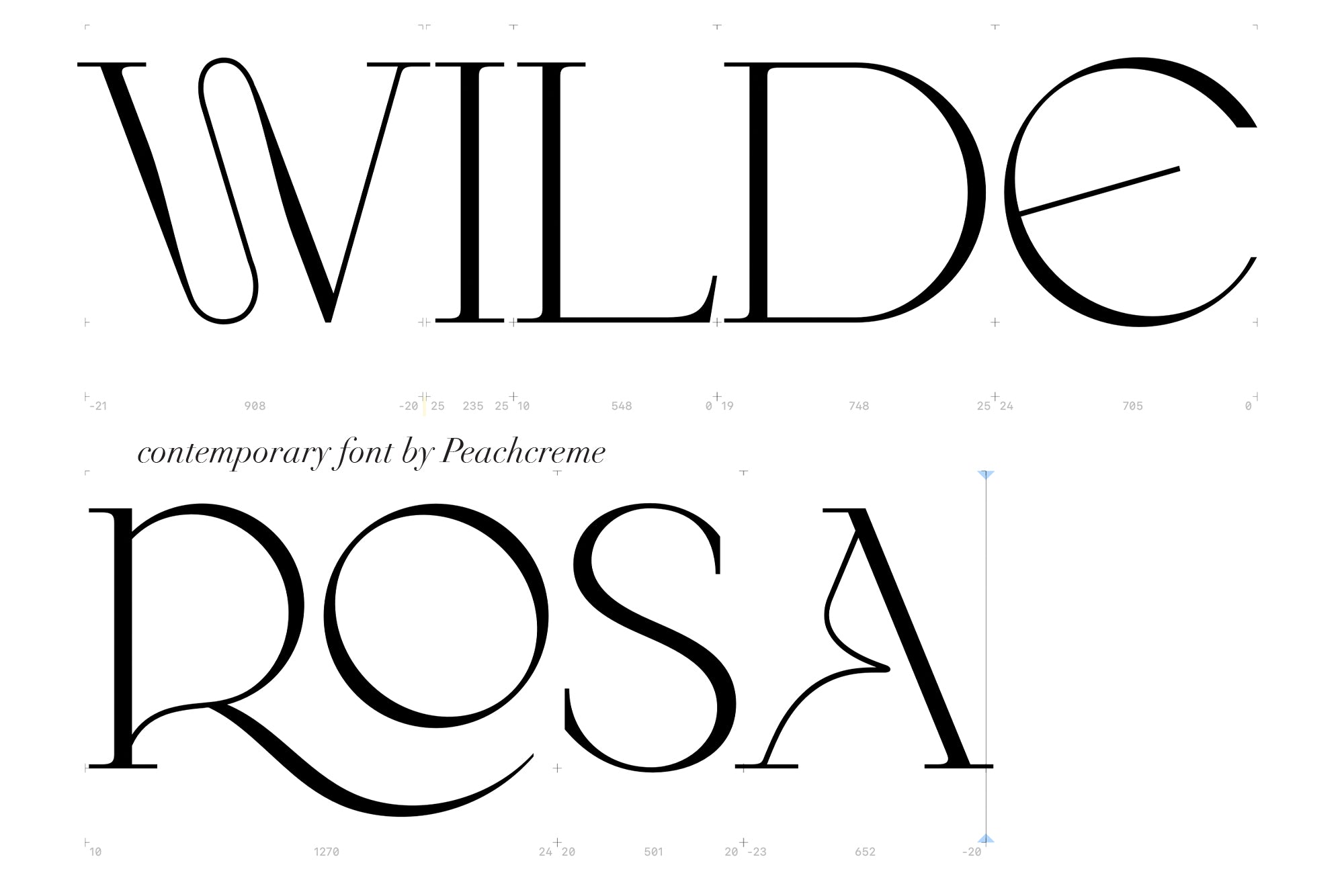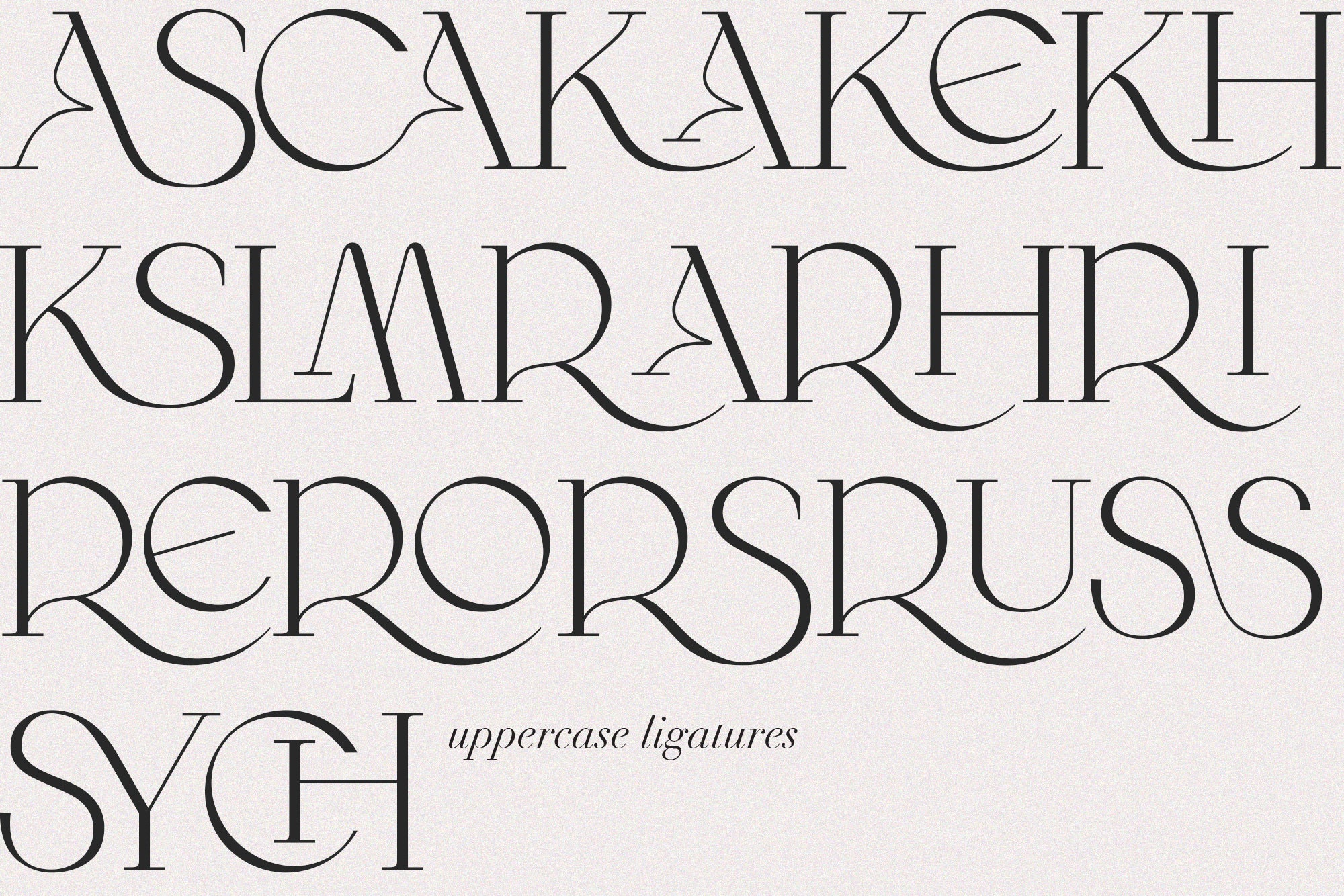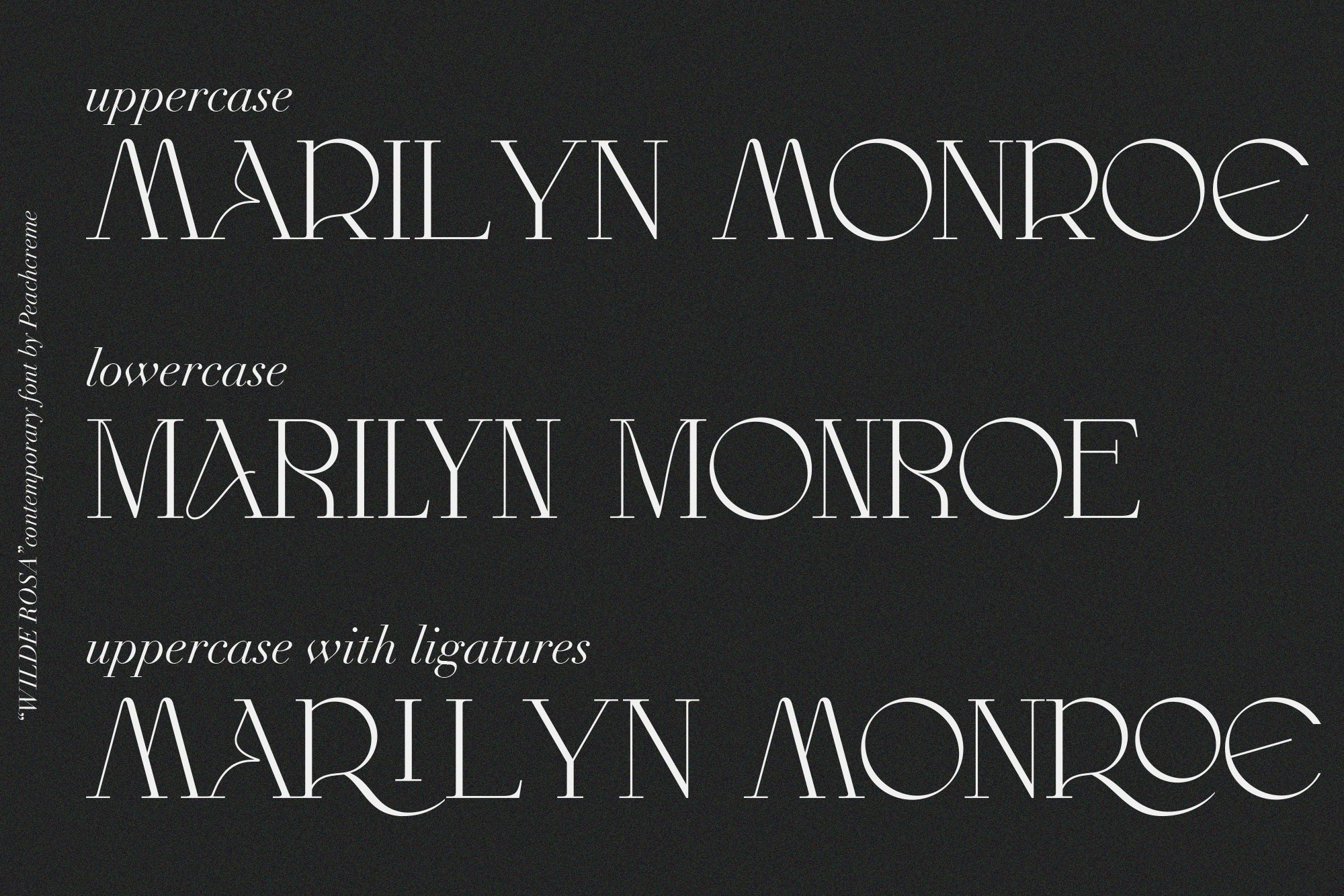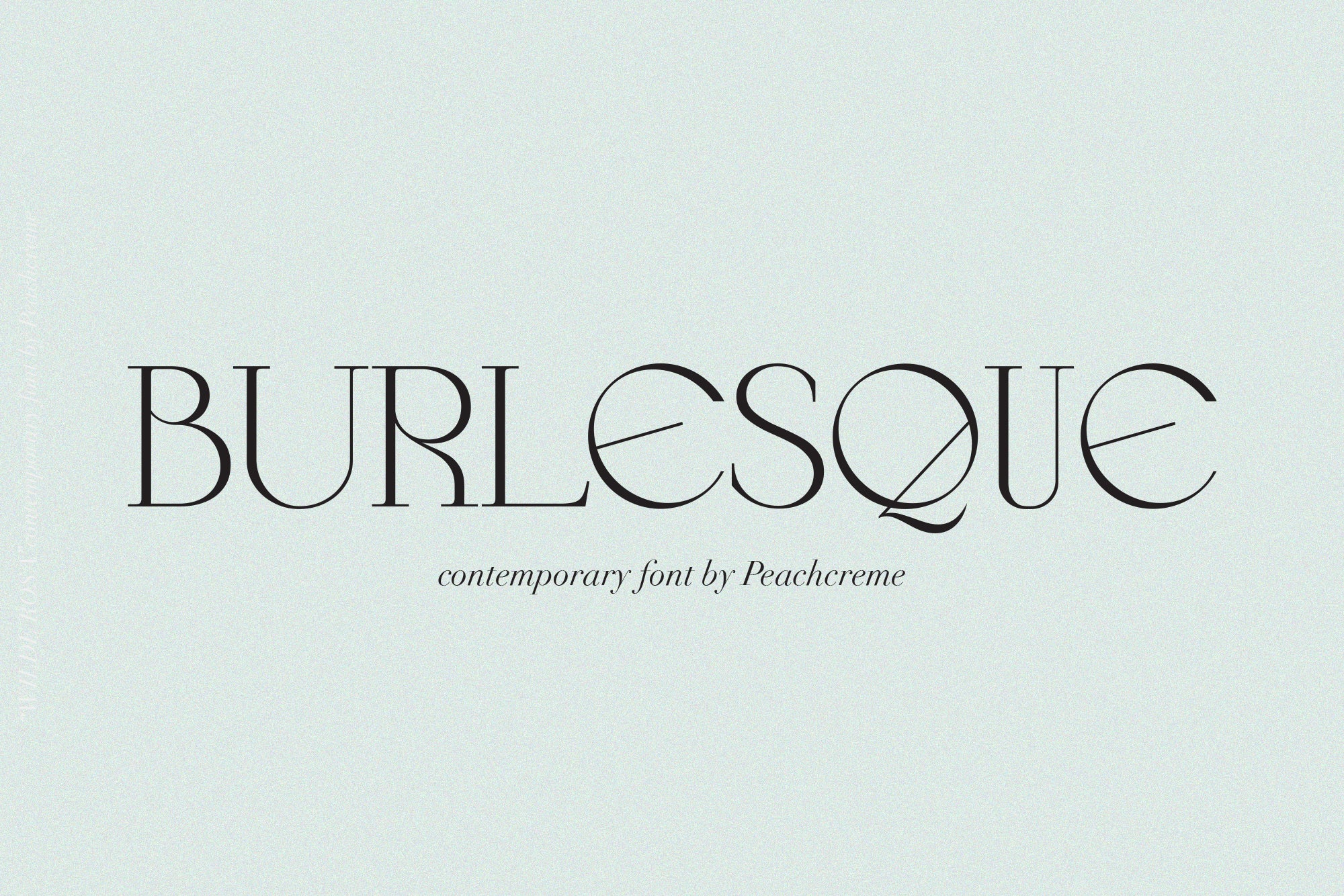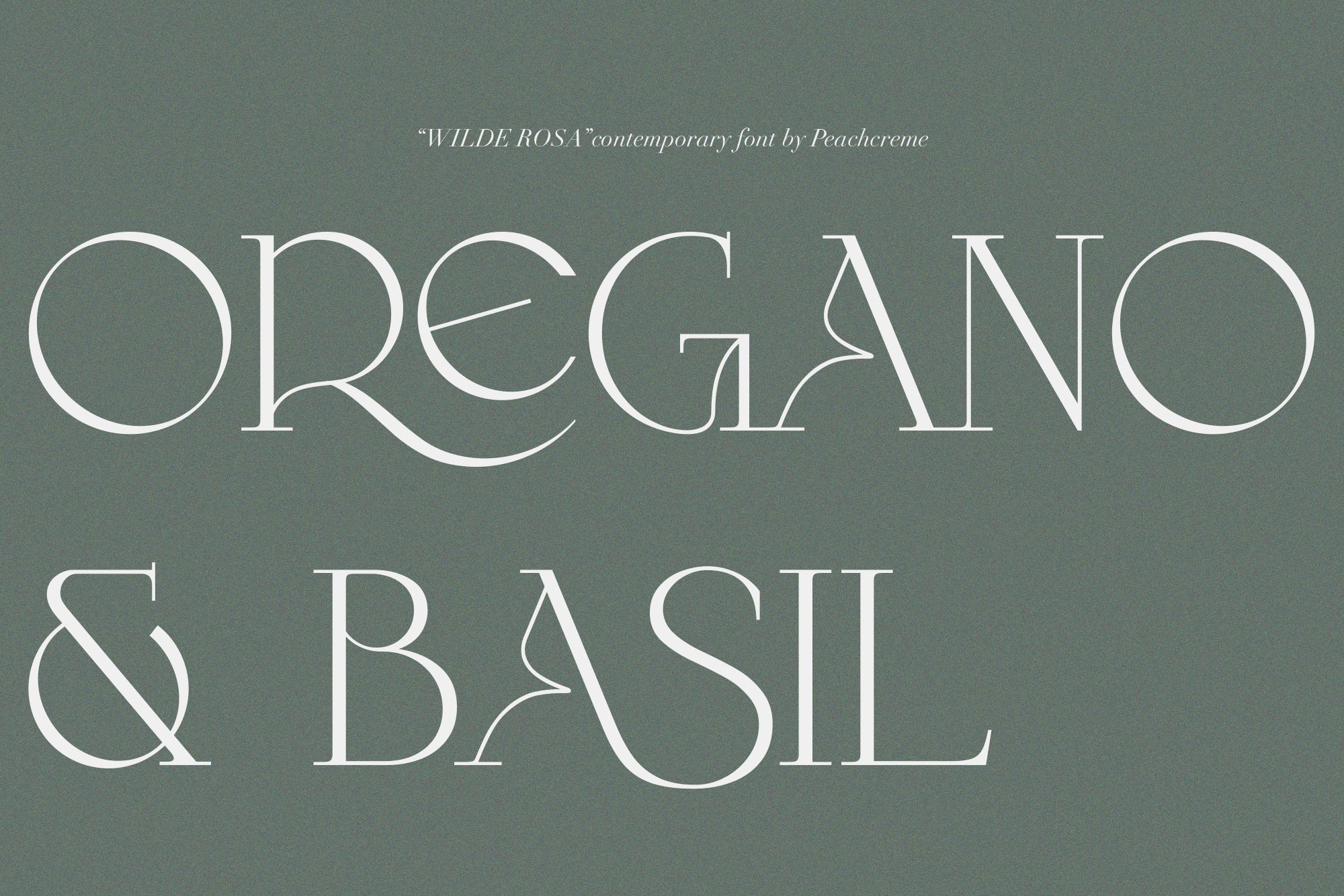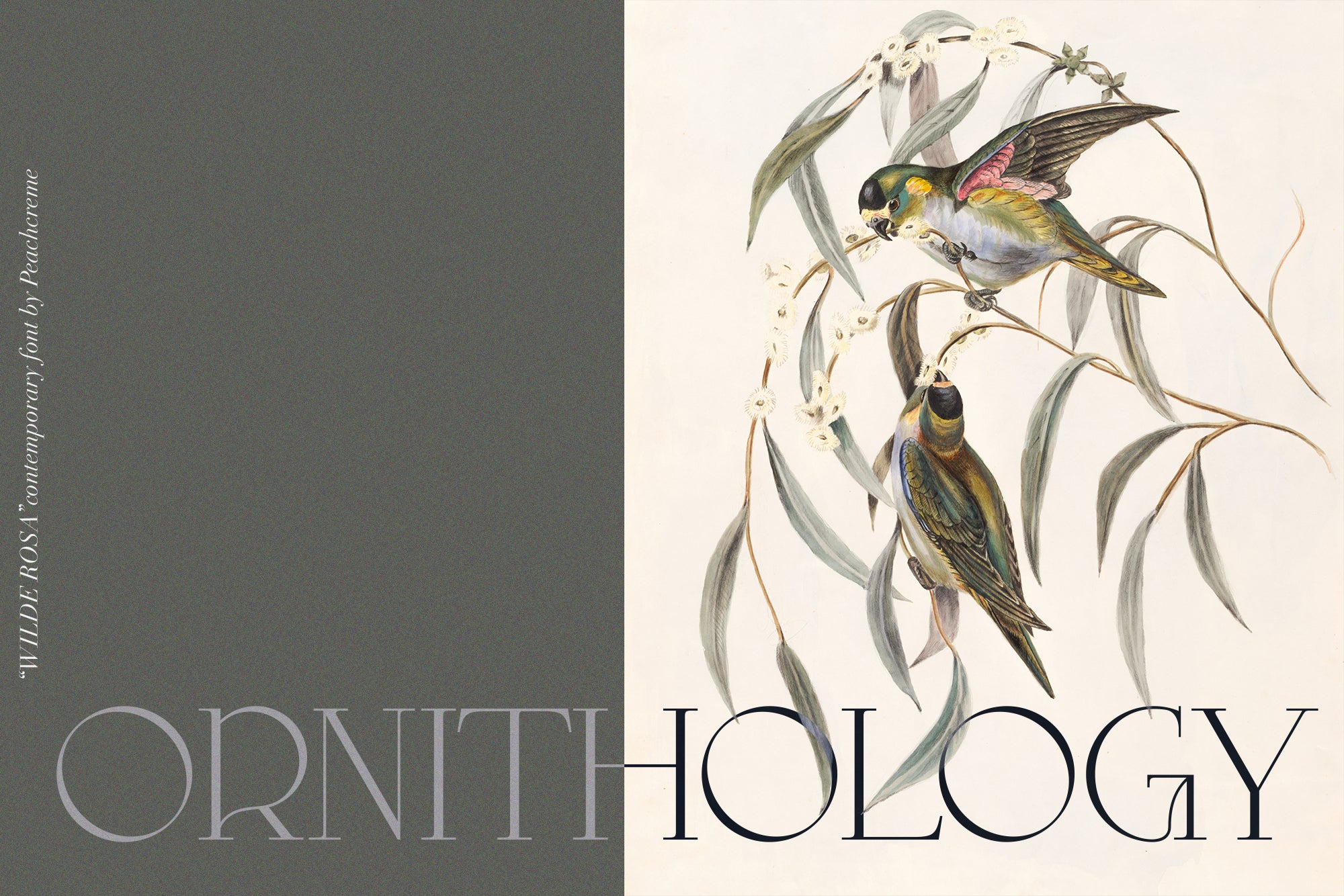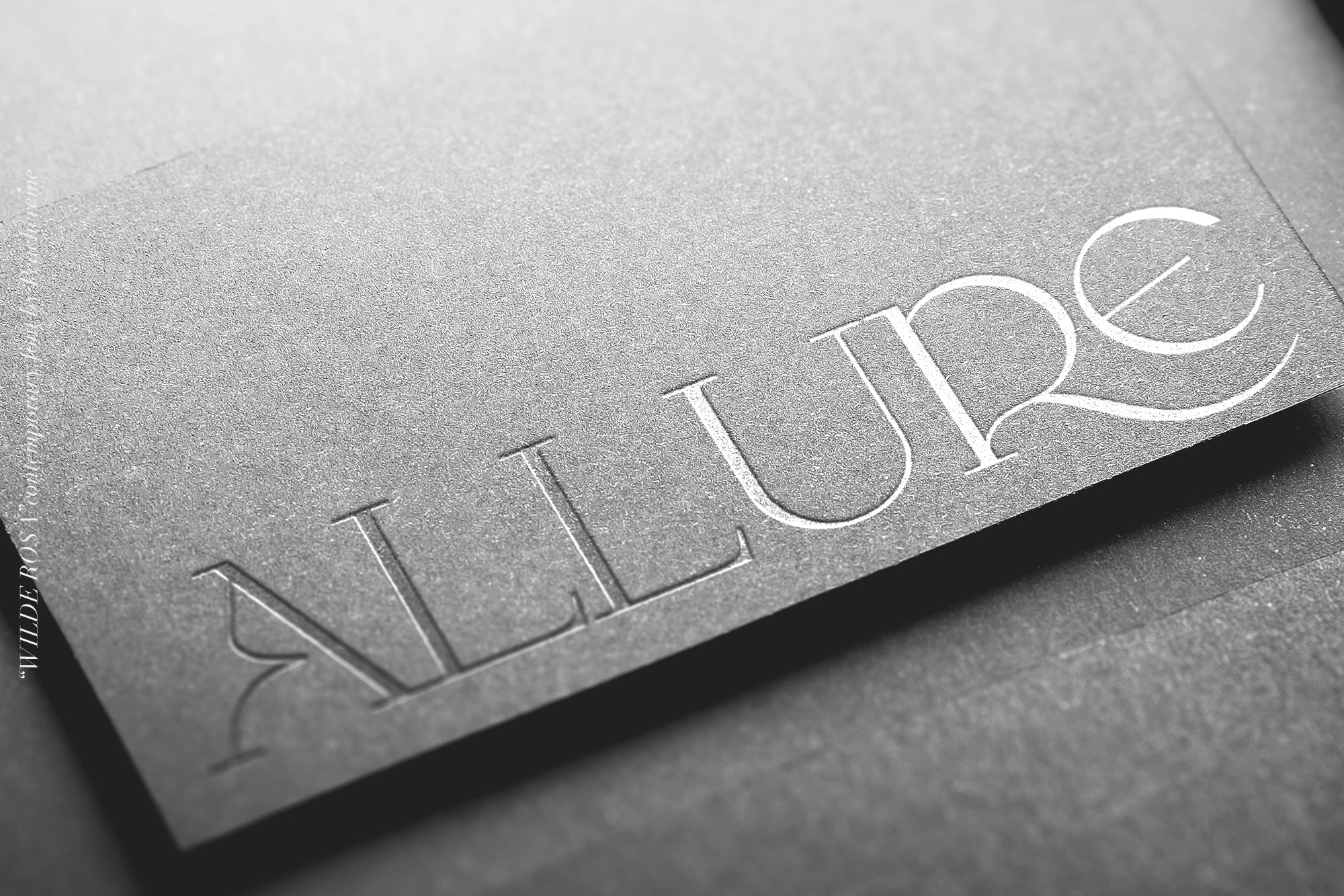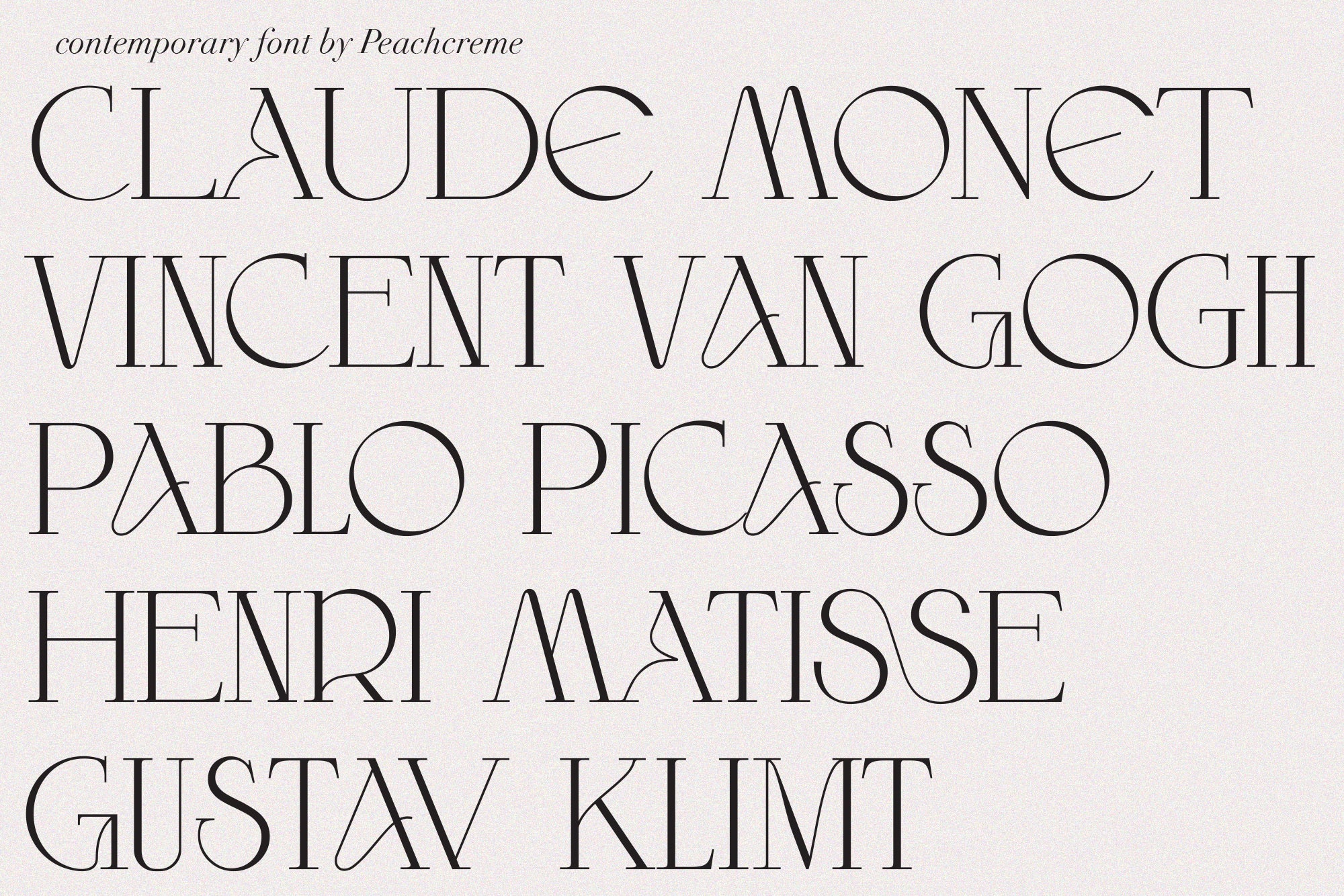
Wilde Rosa // Contemporary Chic Font
Say hello to our new contemporary all-caps font "Wilde Rosa".
Perfect for logos, magazine titles, this lovely font can be paired with clean sans serif.